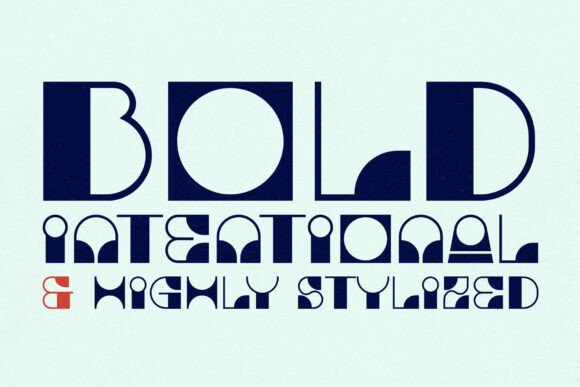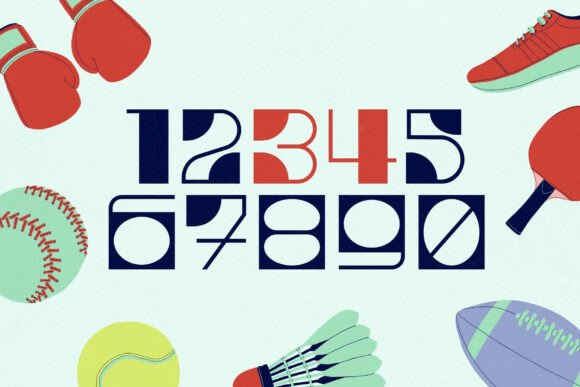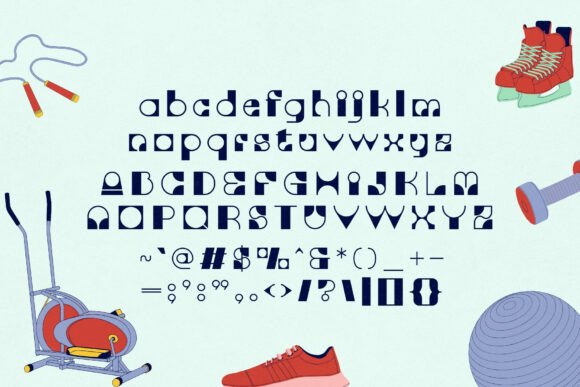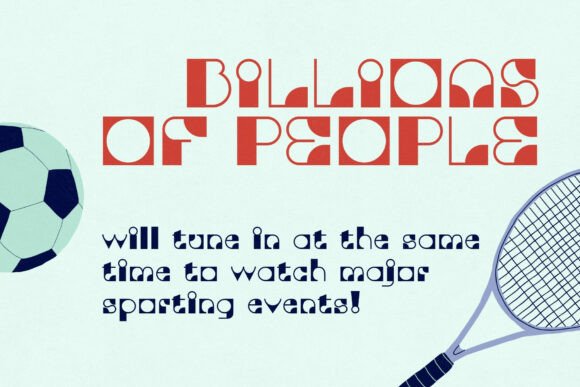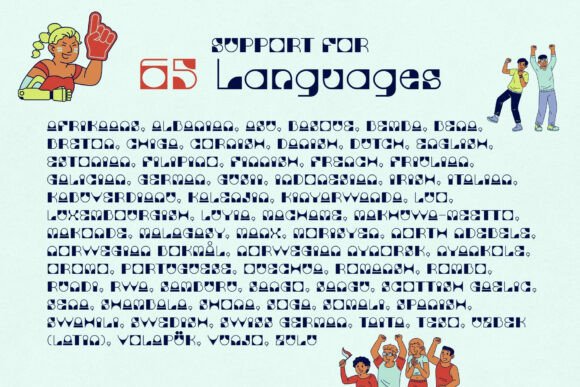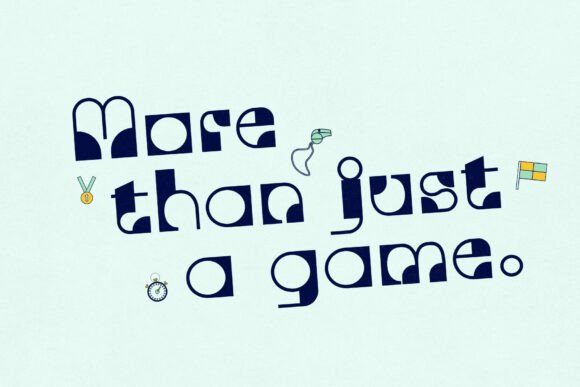
Introduction to Marathon Torch Font Font
Fonts play a crucial role in design, and the Marathon Torch Font font is a typeface that brings both character and versatility to any project. Whether you’re working on a branding project, a website, or a print design, the Marathon Torch Font font offers a unique style that can elevate your work.
Marathon Torch is a bold, brutalist display font inspired by 1950s Olympic typography, mid-century signage, and monumental architecture.
Built with strong geometric forms, tall proportions, and striking negative space, this typeface feels powerful, athletic, and timeless It captures the spirit of post-war optimismβwhere design was confident, functional, and made to endure.
Key Features of Marathon Torch Font Font
Why Choose Marathon Torch Font Font?
The Marathon Torch Font font is more than just a typeface β it’s a design tool that helps you communicate your message with style and clarity. Its unique character set and versatile design make it suitable for a wide range of applications, from elegant invitations to bold headlines.
With its carefully crafted letterforms and balanced proportions, the Marathon Torch Font font ensures readability and visual appeal across all mediums.
What makes Marathon Torch Font font special?
The Marathon Torch Font font stands out with its unique design, exceptional readability, and versatility across various design applications.